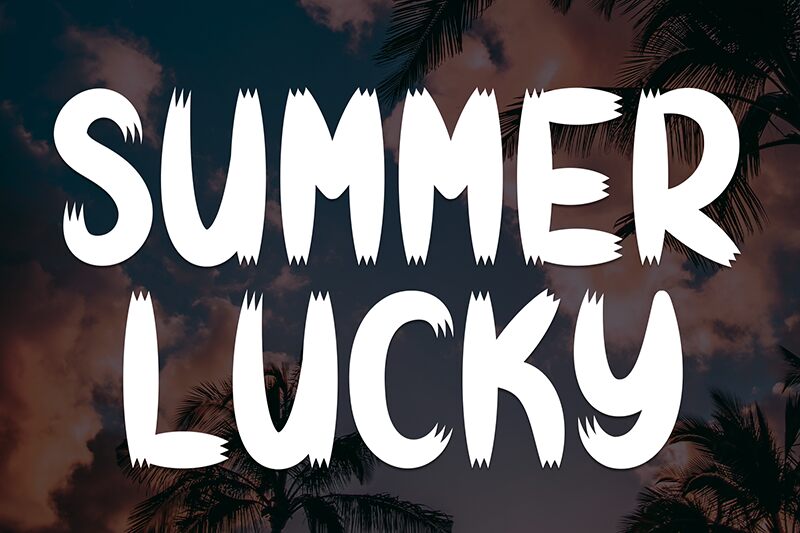
Summer Lucky
Summer Lucky font by Andi Moz is a scratchy and textured brush font with an energetic presence that fills the page. It is lively, unconventional, and expressive with each element coming across as impulsive and spontaneous. This makes it look complete even in absence of decorations other than ink texture visible throughout its characters.
Use this bold brush-font for posters, film covers, book covers, branding projects, packaging elements, product labels design and more. Use it for quotes typography meant to grab attention or greeting cards where you want to use eye catching text without distractions.